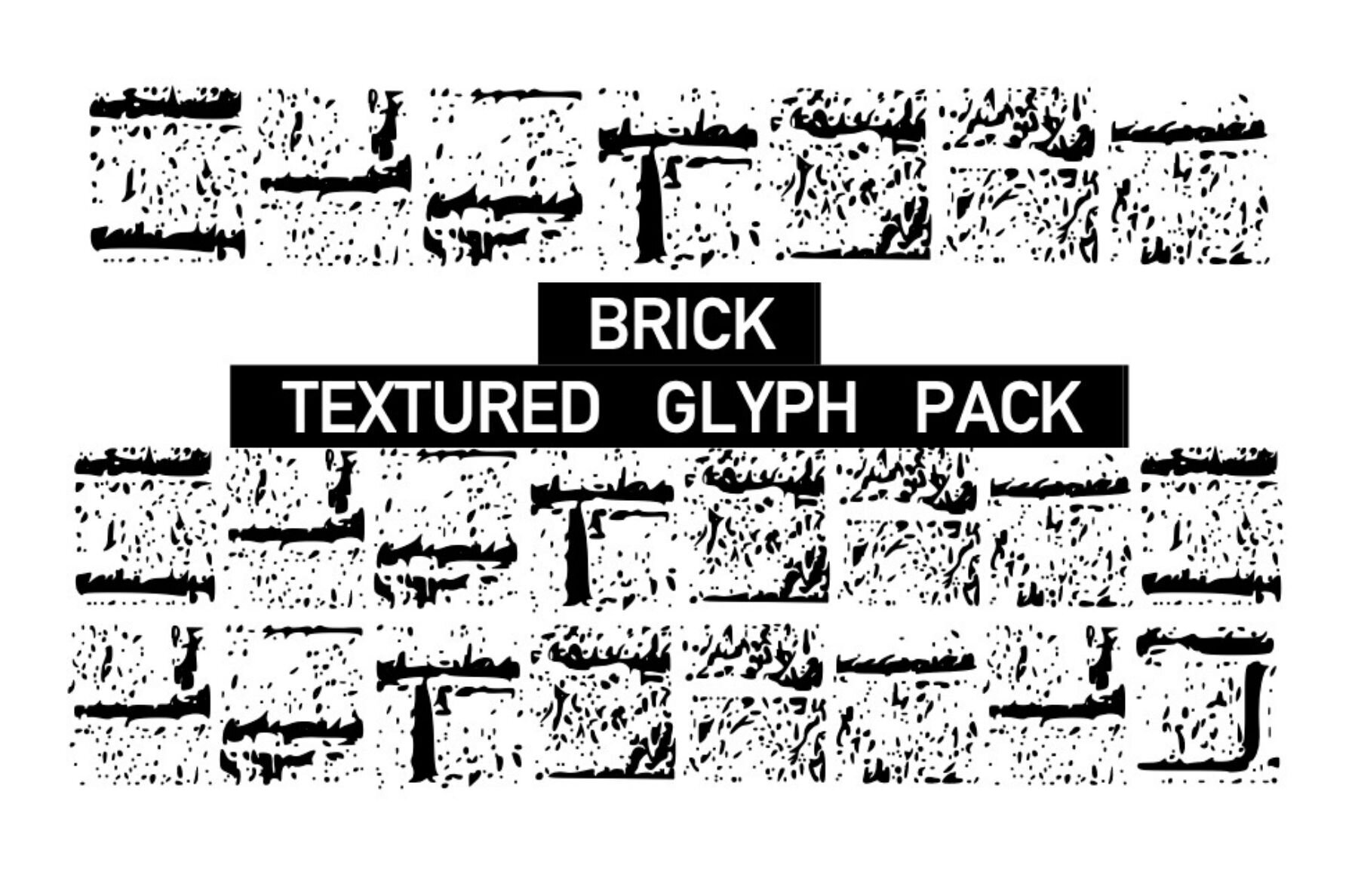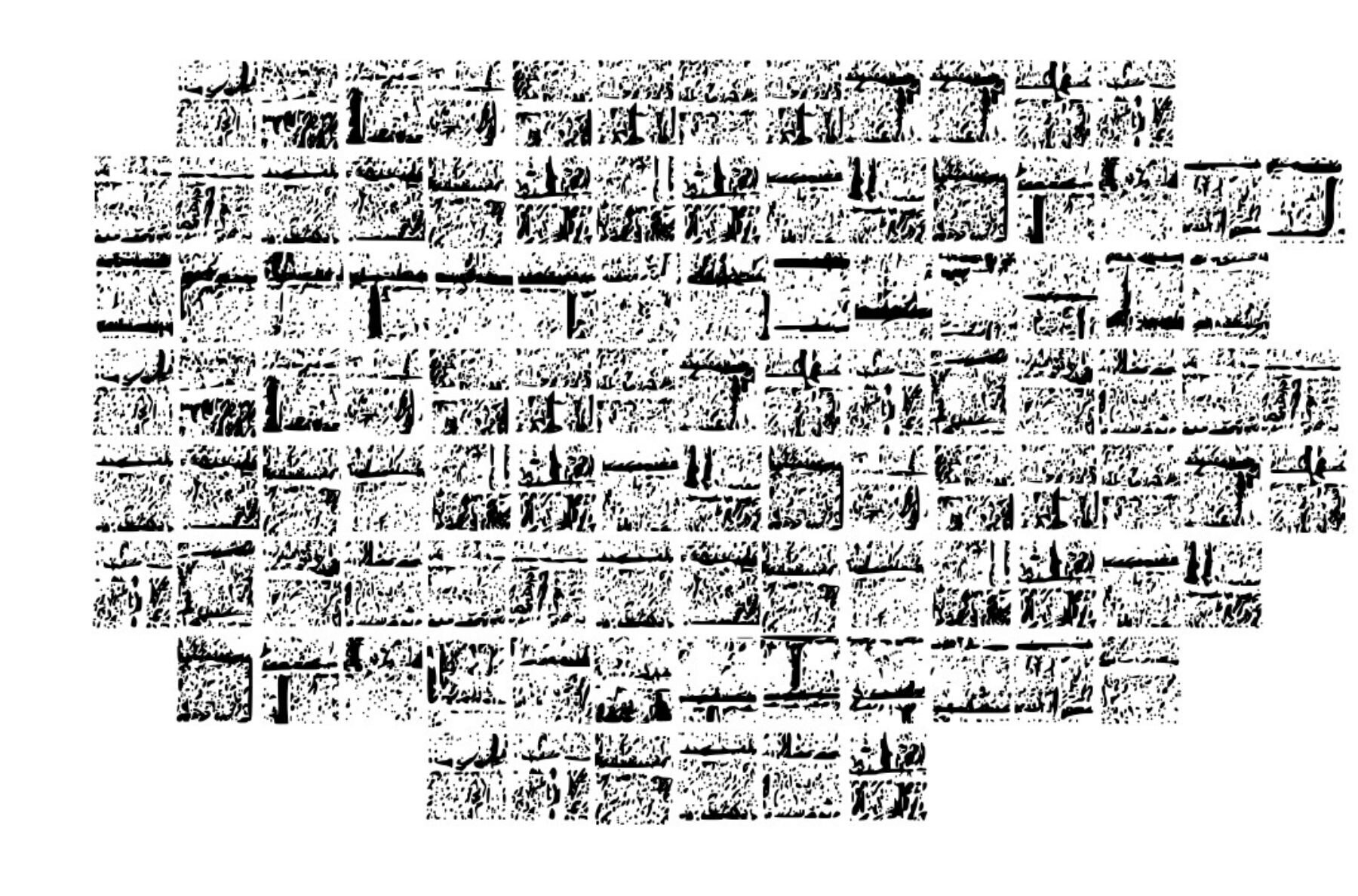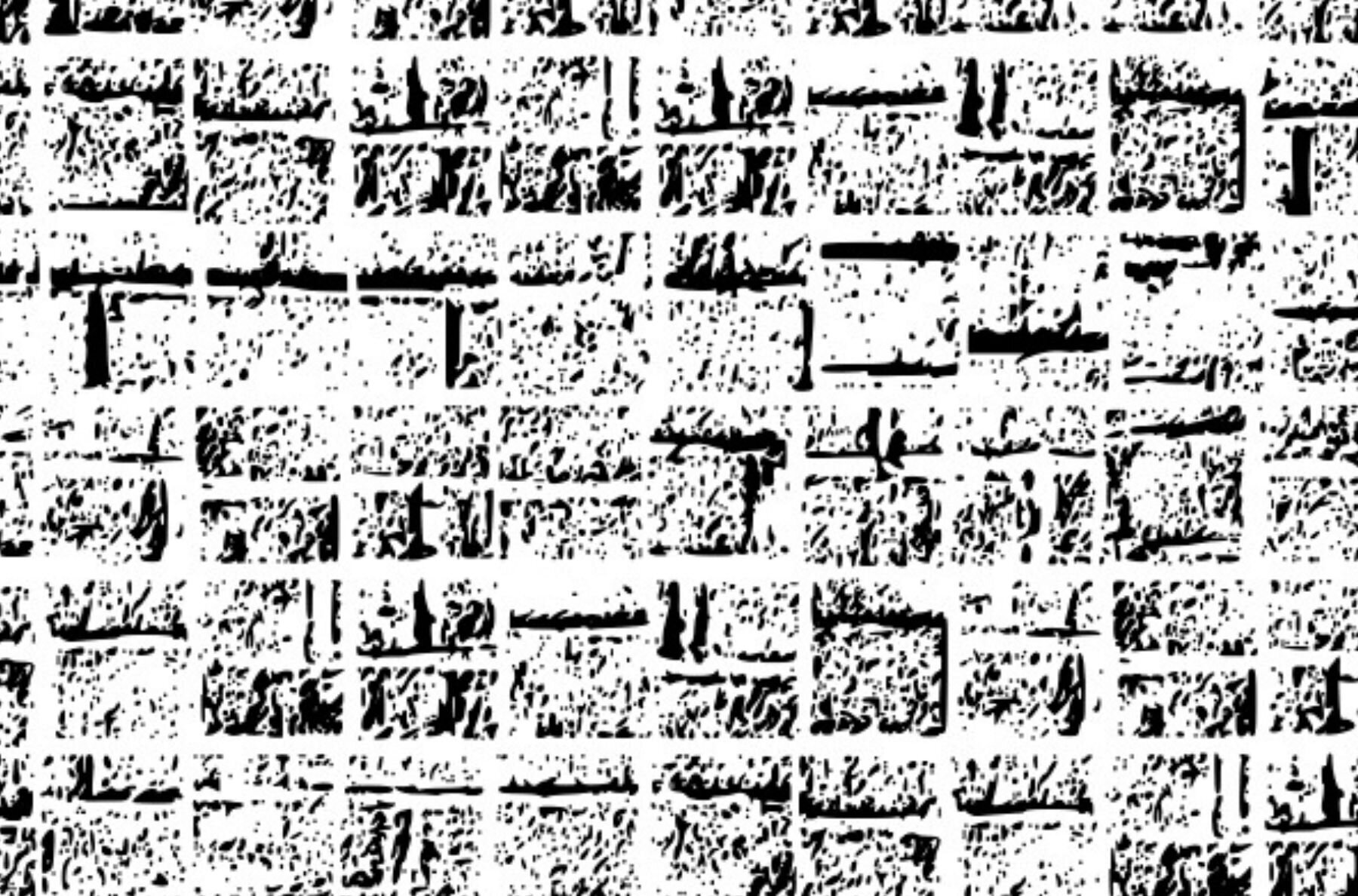
Texture Brick: Add Realism to Your Designs
Discover a diverse collection of authentic brick wall textures with Texture Brick by Graphics Bam. Each glyph in this set showcases unique, worn textures, capturing the essence of aged house bricks. Perfect for bringing a touch of realism to your design and craft projects.
• Authentic brick textures
• Each glyph offers a unique, weathered look
• Ideal for design and craft applications